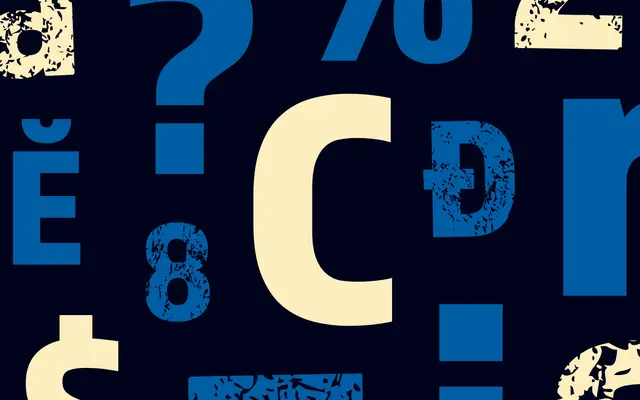
Almaq
Dalton Maag · Fabio Haag · 2011
A two-variant display sans by Fabio Haag pairing a refined cut with a degraded, askew Rough sibling.
Dalton Maag's Almaq is a display sans by Fabio Haag, designed and developed 2011 to 2017. It ships in two variants of the same weight: Refined, framed as a traditional and approachable display font, and Rough, a degraded and askew counterpart. Latin and Latin Extended coverage supports over 860 languages.
Dalton Maag describes Almaq as a bold and punchy sans typeface with two variant styles in the same weight: Refined, a traditional approachable display, and Rough, degraded and askew.